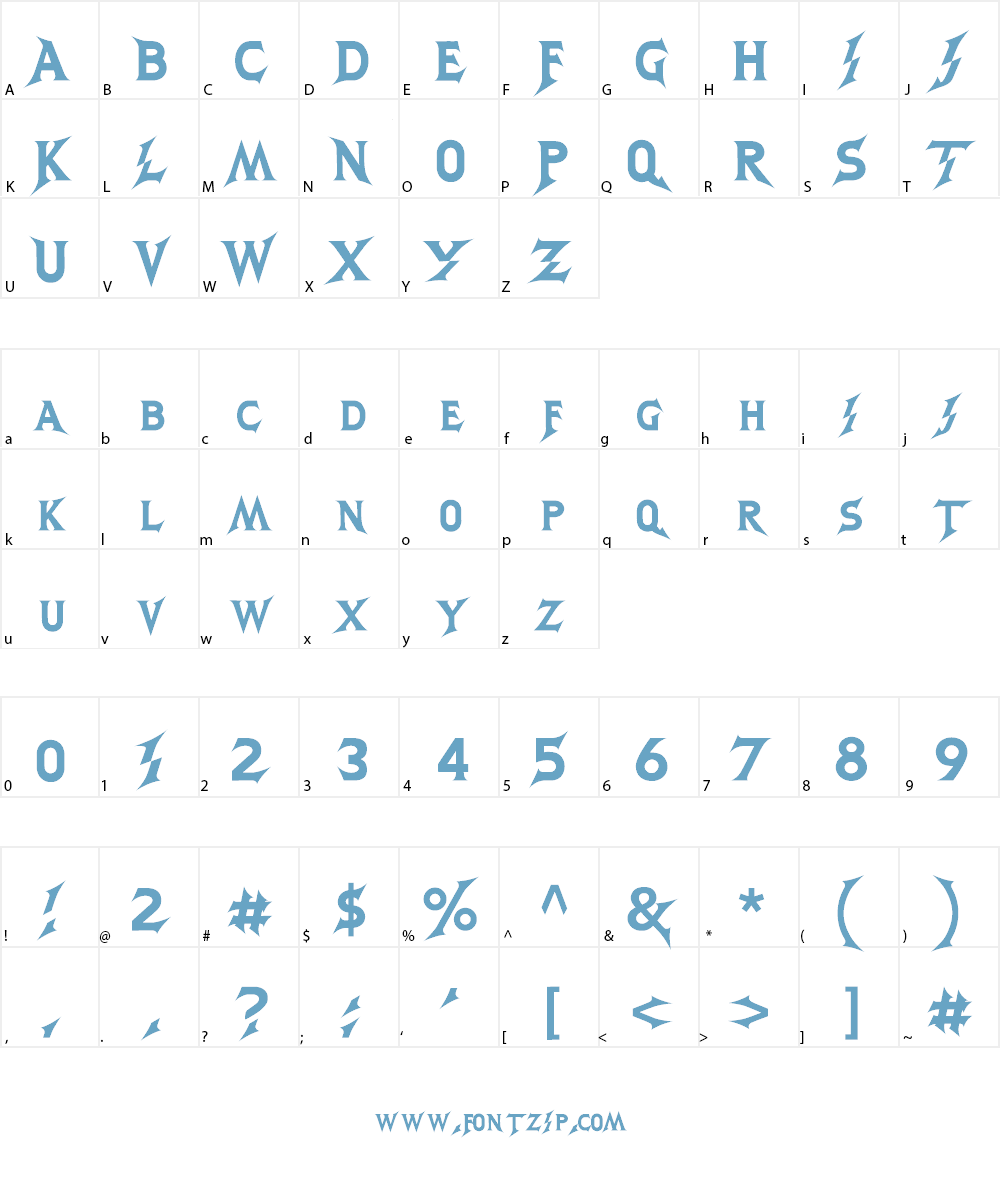
Initial inspiration for this font was the logo of the upcoming Thor movie “Love and Thunder”. It ended up quite different but definitely resembling thunder and lightning! Includes Greek characters.